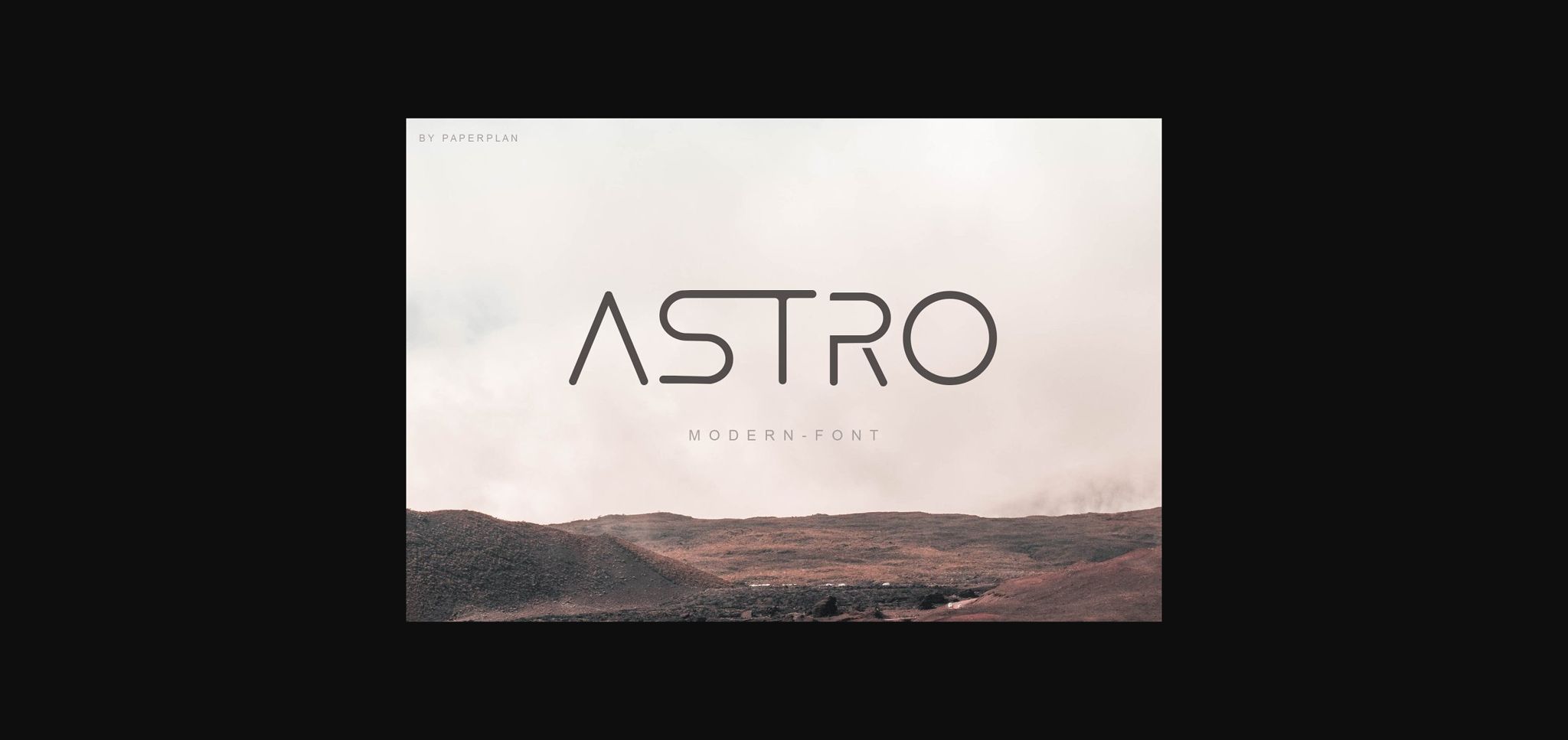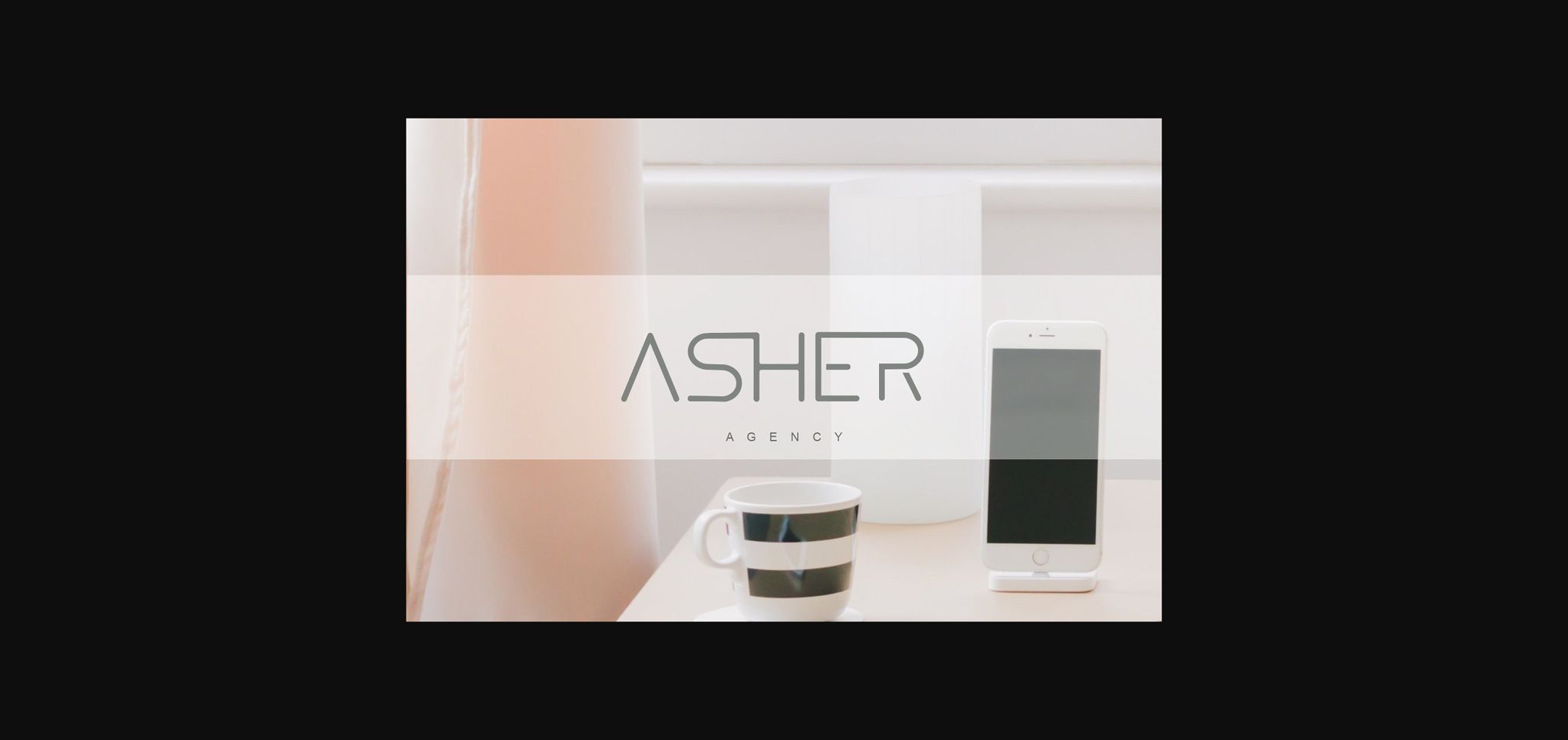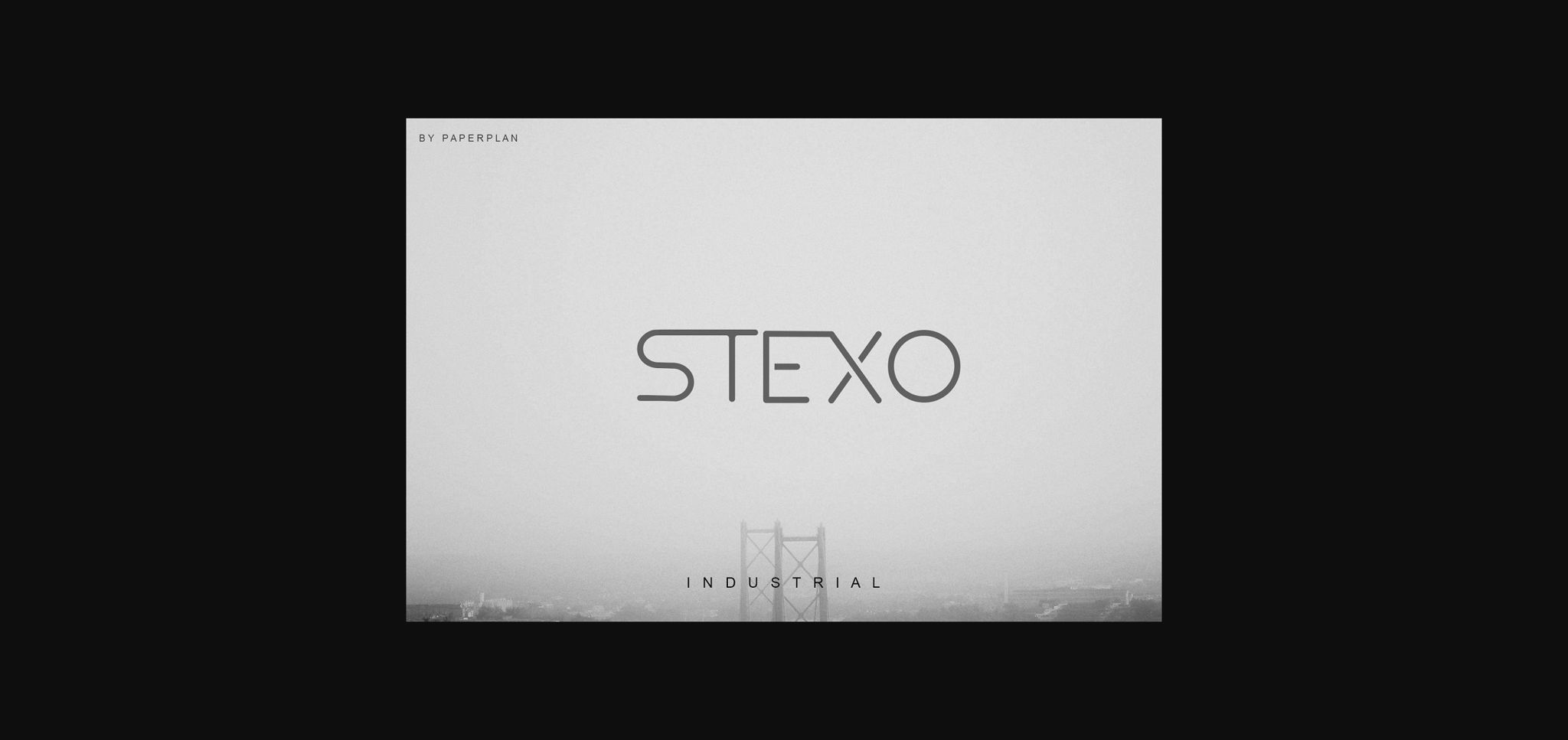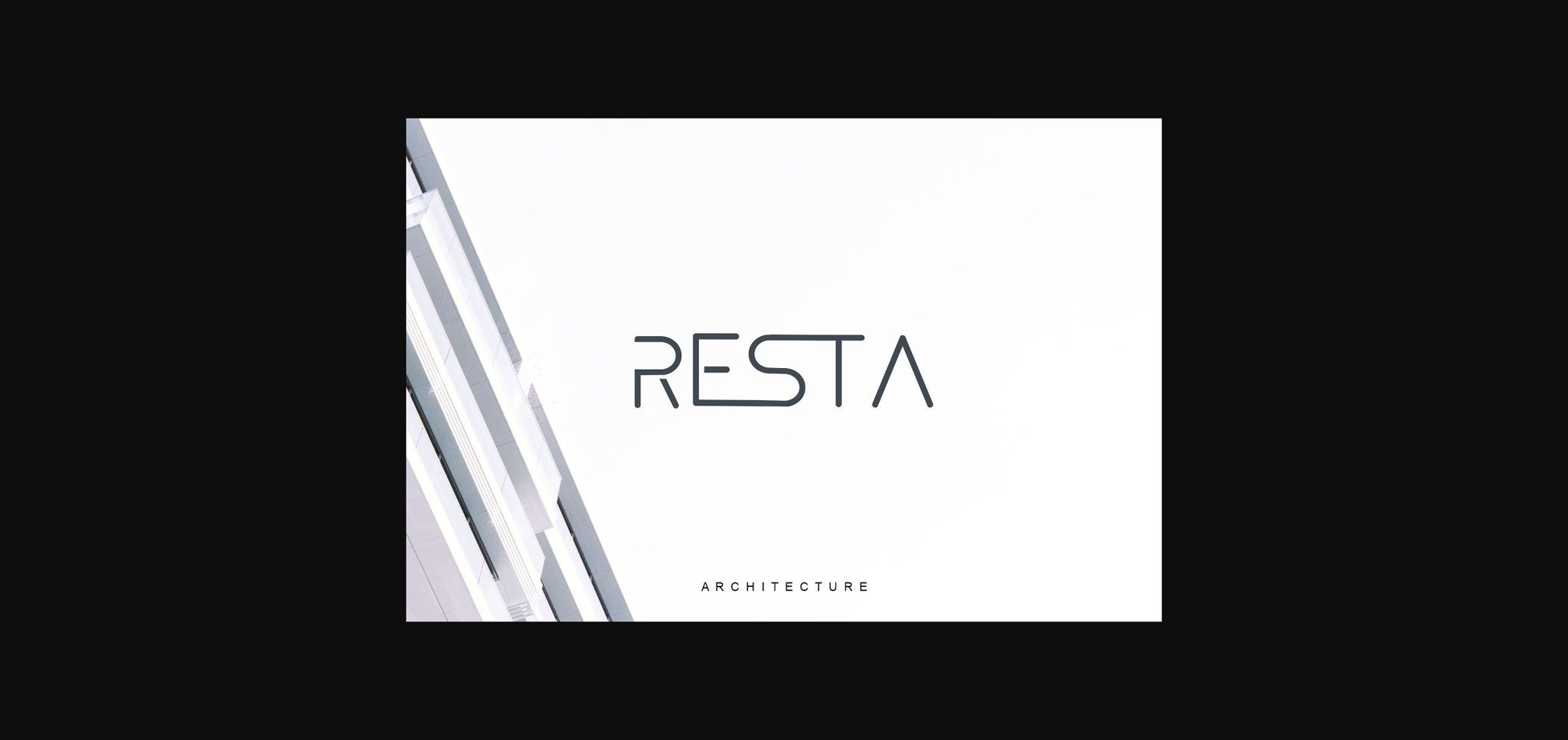
About Astro Font
Astro is a modern sans serif font designed with the golden ratio technique so that it has a sophisticated appearance. Minimalist and futuristic, this typeface would be perfect for all types of logos, labels, posters, or anything that requires a unique touch.